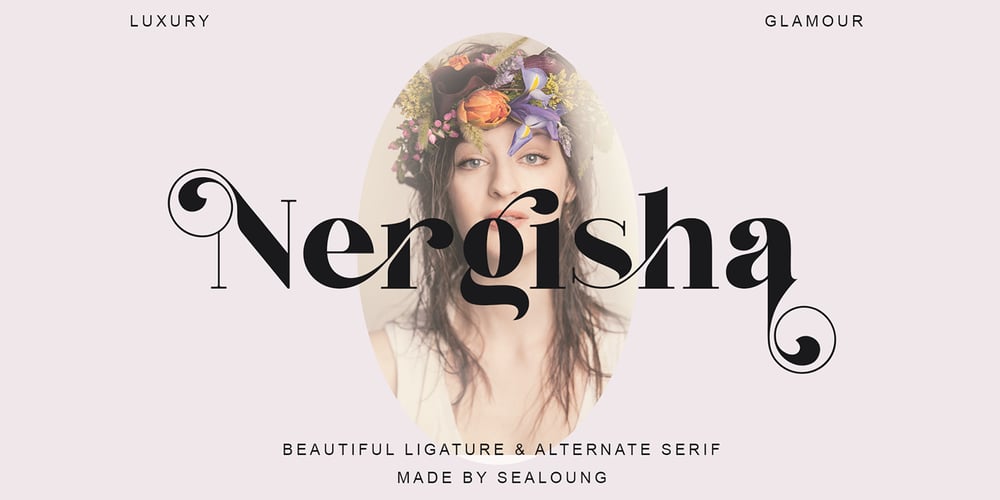
Nergisha
Nergisha font
Nergisha Font Family was designed by Saiful Anwar and published by Sealoung. Nergisha contains 1 styles and family package options. Nergisha is an elegant and trendy serif font. It features uniquely shaped characters and it will most certainly elevate each of your favorite creations. This font is PUA encoded which means you can access all of the glyphs and swashes with ease!